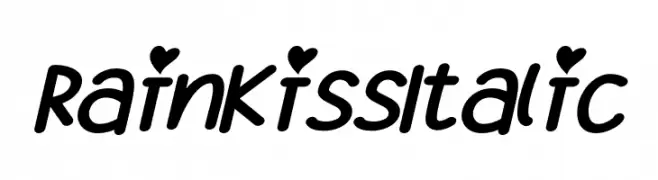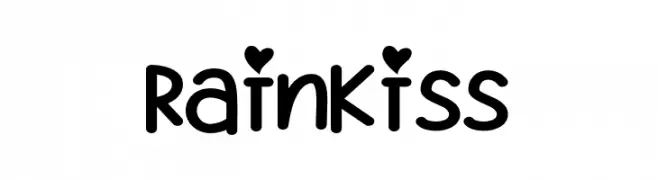
( Fonts by Letterena Studios )
A playful, rounded font with whimsical, bubbly characters.
( Fonts by Letterena Studios )
A playful, italic font with smooth curves and whimsical details.